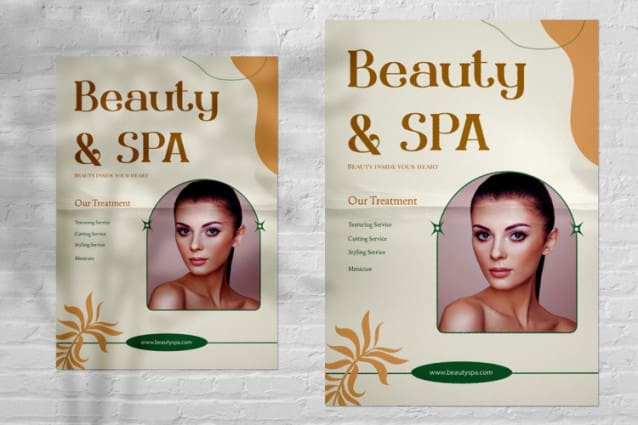
Mayangsari Font
Mayangsari Font is a font designed to bring grace and delicacy to every design. With soft and feminine characters, this font is perfect for projects that require a girly and elegant touch. Each letter is meticulously crafted, creating a flowing and captivating impression, suitable for logos, greeting cards, promotional materials, and more. With Mayangsari, you can easily create captivating designs, adding an unparalleled touch of beauty to every work of yours.